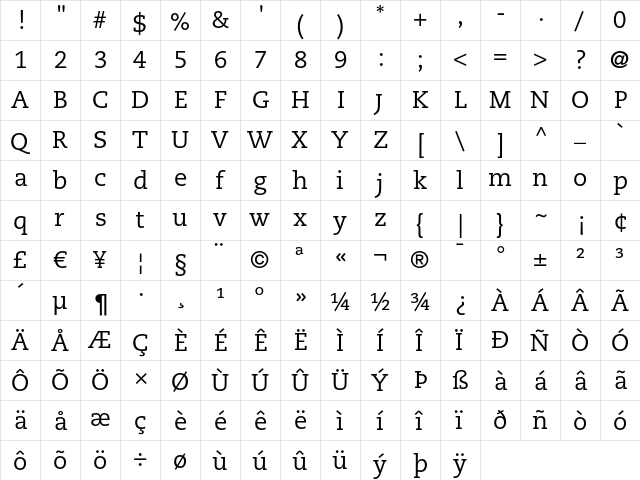
PMN Caecilia LT 55 Roman
Design Context for PMN Caecilia LT Typeface
PMN Caecilia LT is a composed and adaptable typeface that performs quietly and consistently across a wide range of design contexts. Its slender proportions lend an understated elegance to any composition.